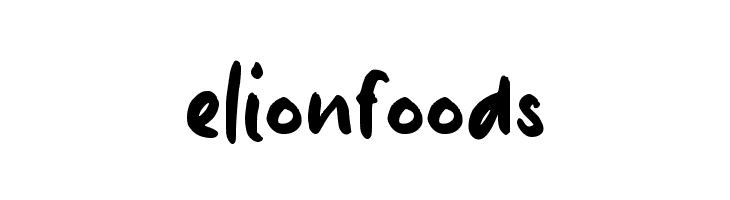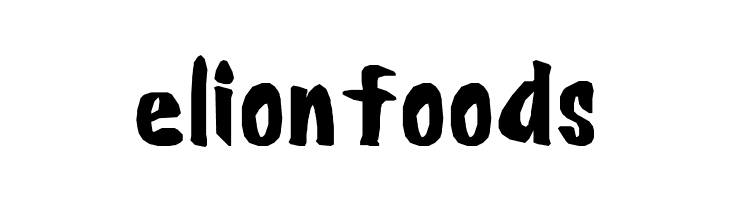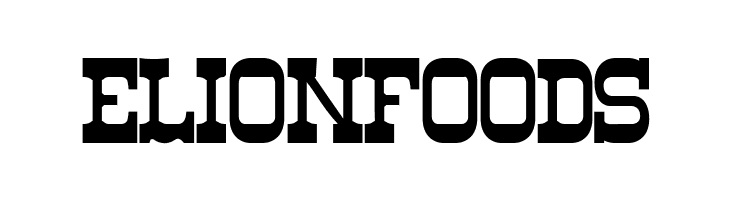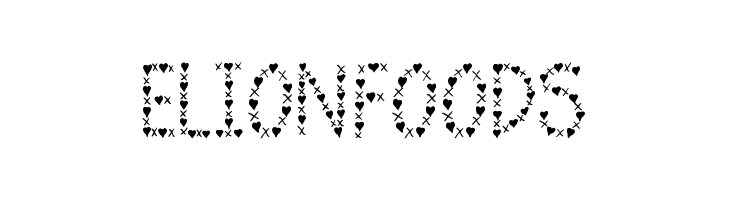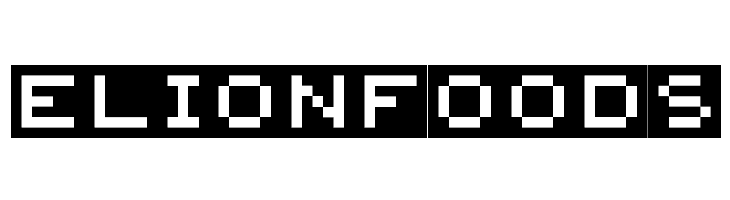
A bold, handwritten font with playful, rounded strokes and a friendly appearance.
A bold, decorative font with heart motifs for a playful, romantic style.
A playful, heart-themed decorative font with bold, whimsical characters.
A decorative font made of hearts and crosses, perfect for romantic themes.
A bold slab serif font with a classic Western style.
A bold, uppercase font with a strong, modern presence.
A bold, geometric monospaced font with uniform character spacing.